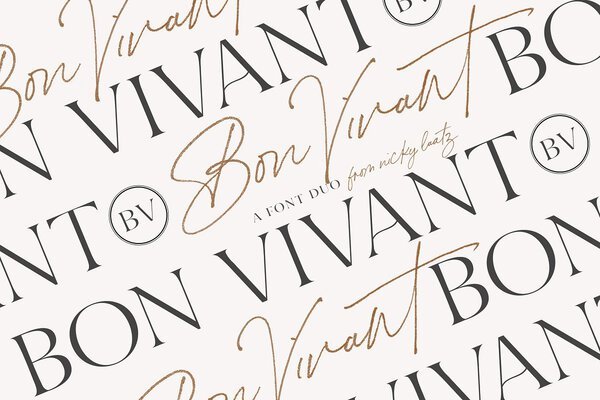
Bon Vivant Font Collection
If you've got style and love all the luxuries in life, you're Bon Vivant! Add a touch of luxury and style to your projects too, with the new Bon Vivant Font Collection.
- Bon Vivant Script Font
- Bon Vivant Serif Font
The Bon Vivant Script is available as both a bitmap OpenType SVG font, and Regular Opentype font. - The Script includes large selection of automatic ligatures - they make your type look more like natural handwriting rather than a font. The script has uppercase, lowercase, all punctation and numerals. Test drive the font by typing your phrase/ text into the text preview box on this page.
The Bon Vivant Font Serif comes in 2 weights, regular and bold. The serif has uppercase, lowercase, all punctation and numerals. Test drive the font by typing your phrase/ text into the text preview box on this page.